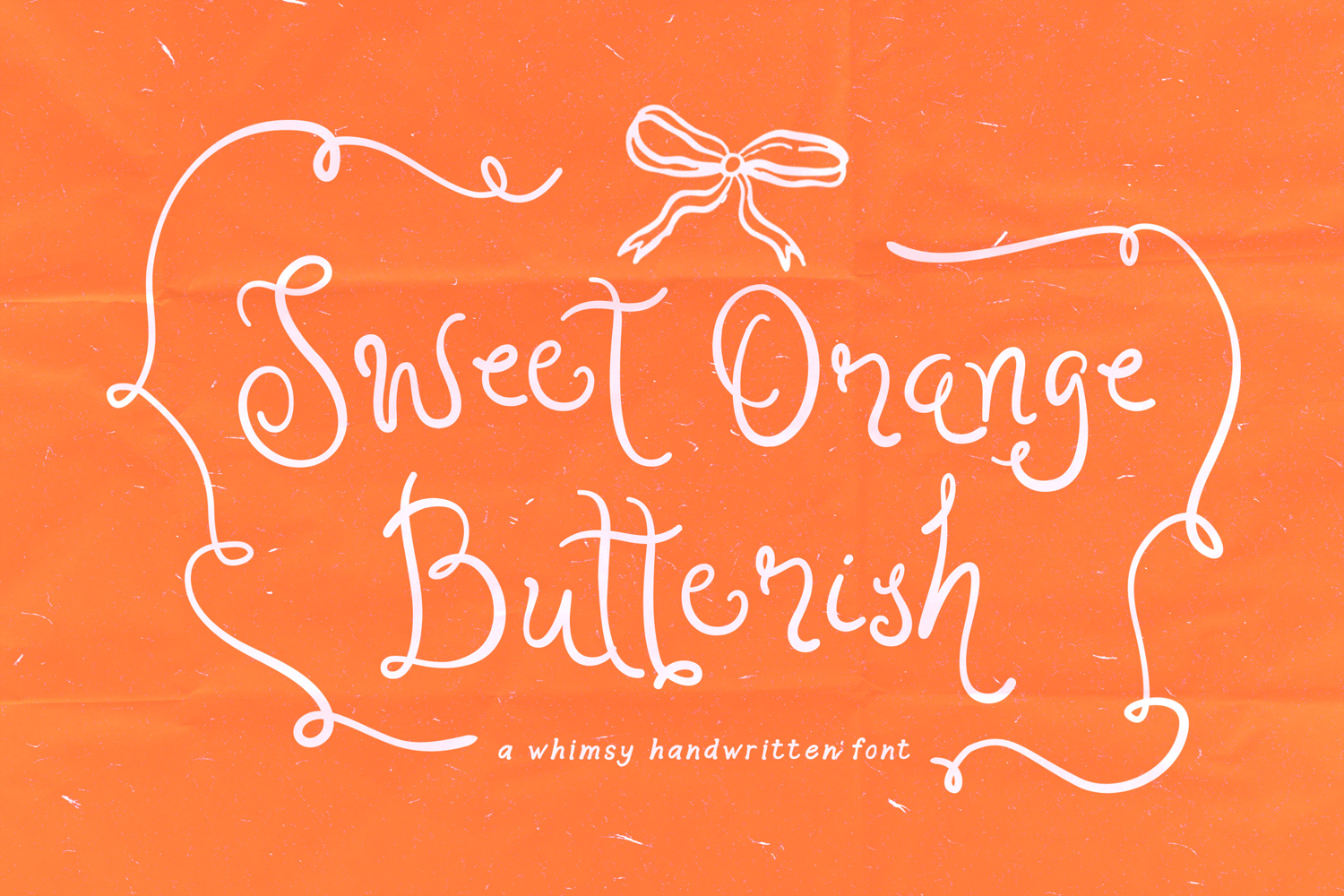
Sweet Orange - Whimsical Handwritten Script
Sweet Orange – A Whimsical Handwritten Font
Sweet Orange is a charming handwritten font that brings a playful and warm personality to your designs. Inspired by cozy kitchens, fresh citrus mornings, and joyful handmade notes, this font captures the natural flow of authentic handwriting with a whimsical touch.
Its soft curves, bouncy letterforms, and friendly character make Sweet Orange perfect for designs that want to feel cheerful, lighthearted, and inviting. The natural strokes give it an organic feel, as if each letter was written with care and creativity.
With its playful rhythm and sweet personality, Sweet Orange adds a delightful handmade charm to any design.
Let your creativity flow and make every design feel a little brighter with Sweet Orange.